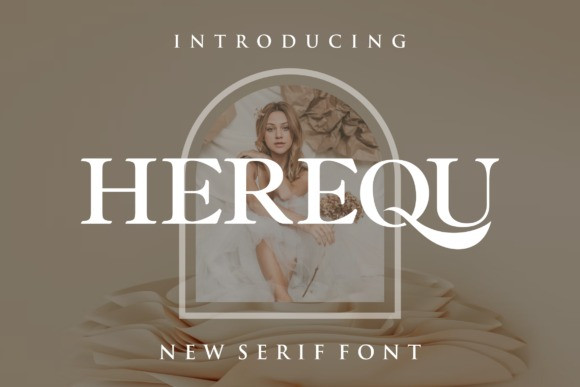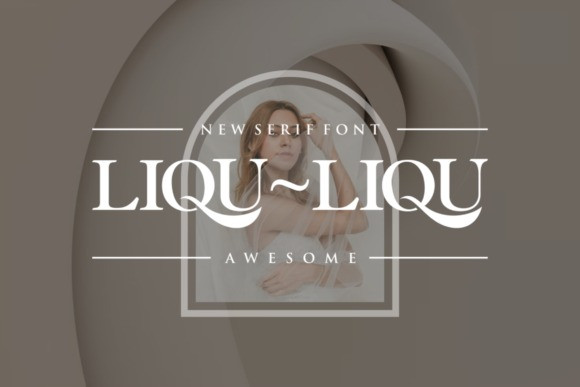
Herequ Font
Herequ is a bold and authentic serif font. The font is suitable for any branding project like logo, t-shirt printing, esport, and many more. outstanding in a wide range of contexts.